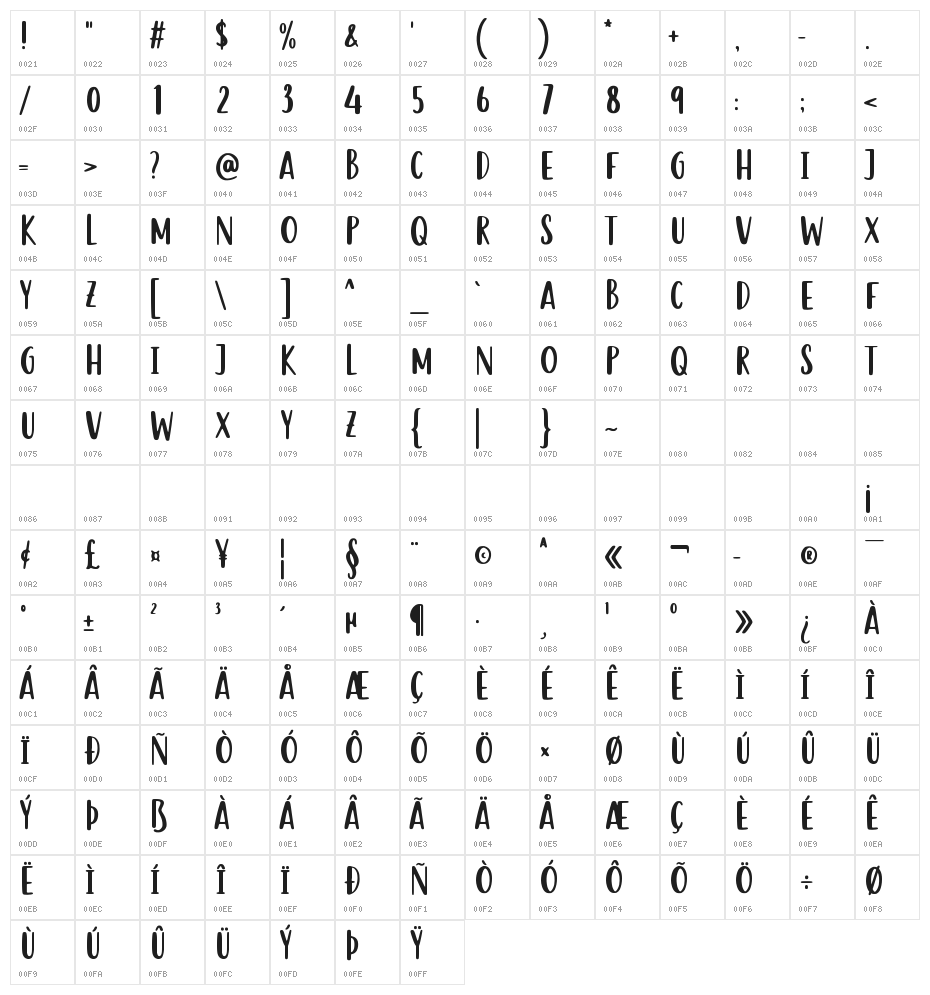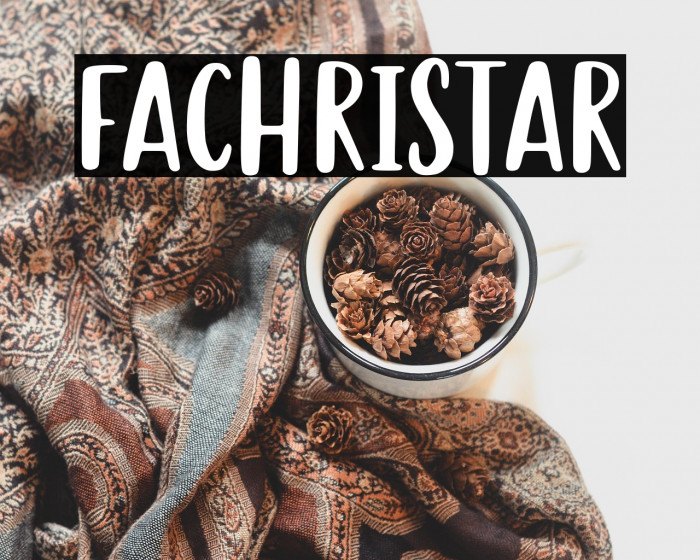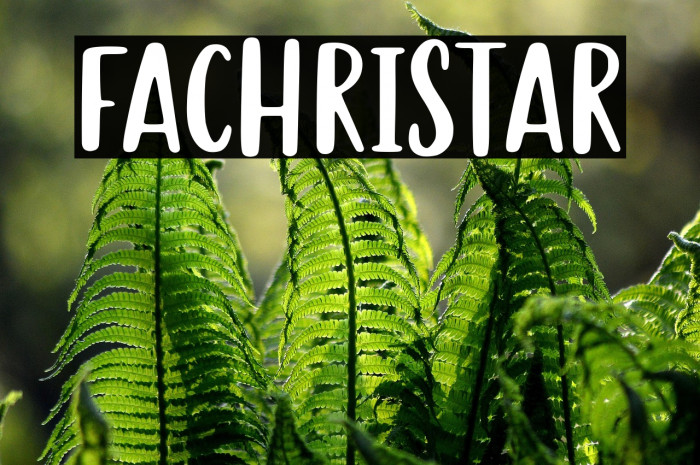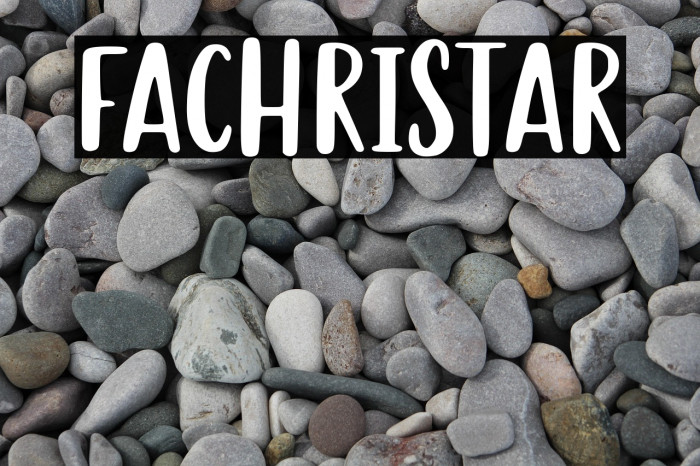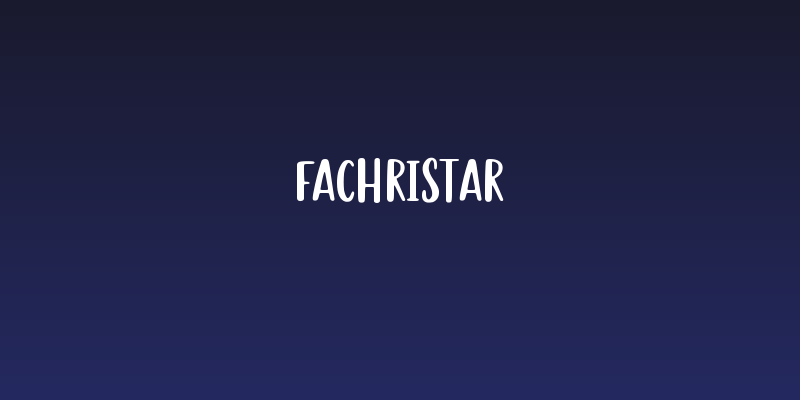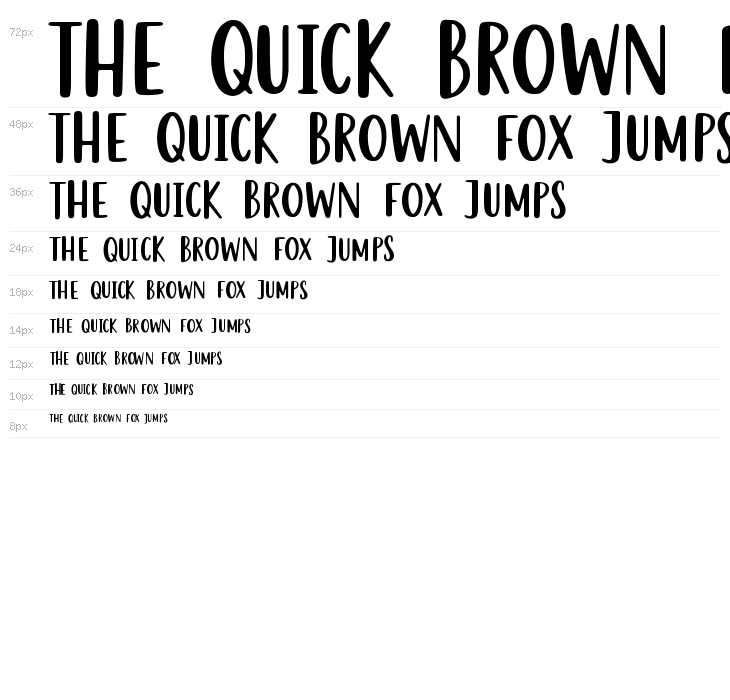
Fachristar Font
Fachristar Description
This font features a playful and bold handwritten style, characterized by its smooth curves and slightly irregular shapes that add a personal touch. The uppercase and lowercase letters maintain a consistent height, creating a harmonious appearance. The numbers and special characters are designed to match the overall aesthetic, ensuring a cohesive look across all text. The strokes are moderately thick, providing good readability while maintaining a casual feel. This font is suitable for projects that require a friendly and approachable vibe.
| Overall Style | Casual |
| Use Case | Headlines, Logos, Social media graphics |
| Proposed Projects | Ideal for greeting cards, children's books, playful branding, and social media graphics. |